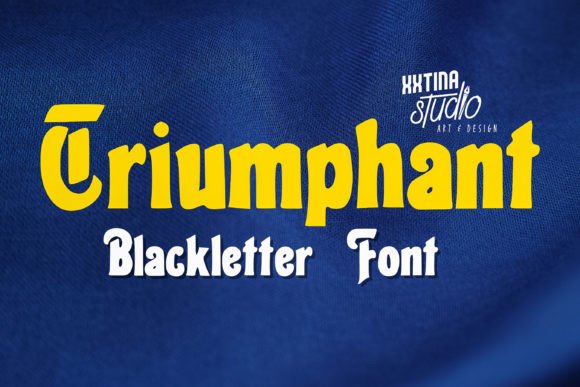
Are you searching for a font that is both elegant and eye-catching? Look no further than Triumphant, a beautiful blackletter font that will add a touch of sophistication to any project.
Inspired by the flowing lines of antique German calligraphy, Triumphant is perfect for creating invitations, wedding announcements, and other special occasion materials. Its bold, distinctive characters will make your words stand out from the crowd, and its versatility makes it suitable for use in both formal and informal settings.
Whether you're a professional designer or a DIY enthusiast, Triumphant is a must-have for your font collection. Its timeless style and endless possibilities will make it a go-to choice for all your creative projects.